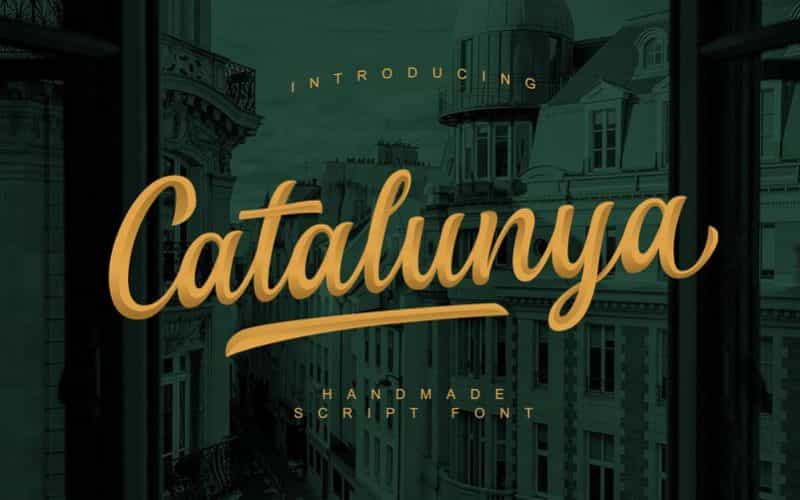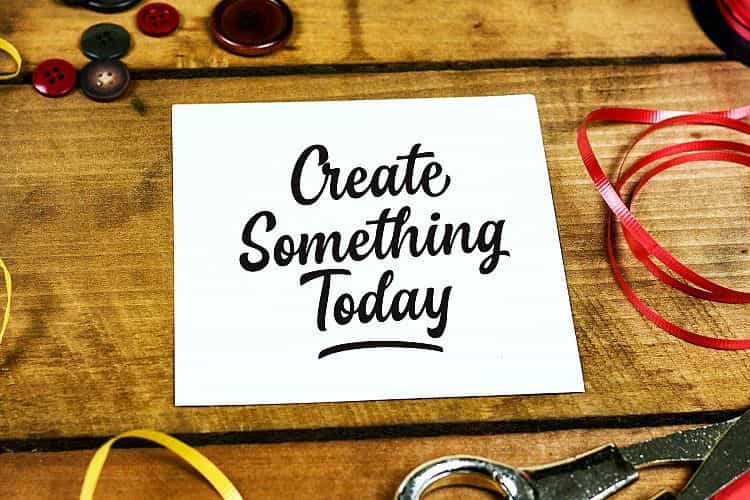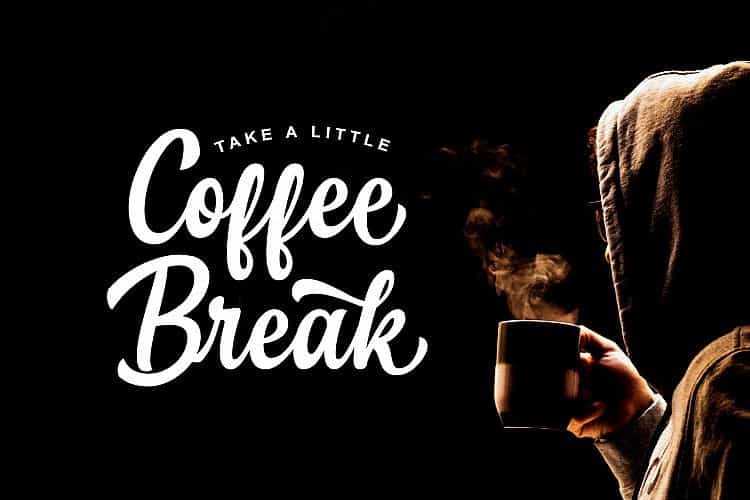
Discover Catalunya Script Font, part of the Brush Calligraphy Various collection—a versatile and unique font perfect for adding a personal touch to your projects. Download it for free and enjoy crafting designs with style, from invitations to social media posts. This font is available exclusively for personal use, giving you the freedom to create without limits. Unlock your creativity with Catalunya Script Font today!
This is my new font product, so I introduce you to Catalunya. Catalunya font has smooth curve and will therefore complement any kind of printing techniques since it will be easy to print. For any purpose projects like Quotes, business card, Initial, etc. This font would be more suitable.